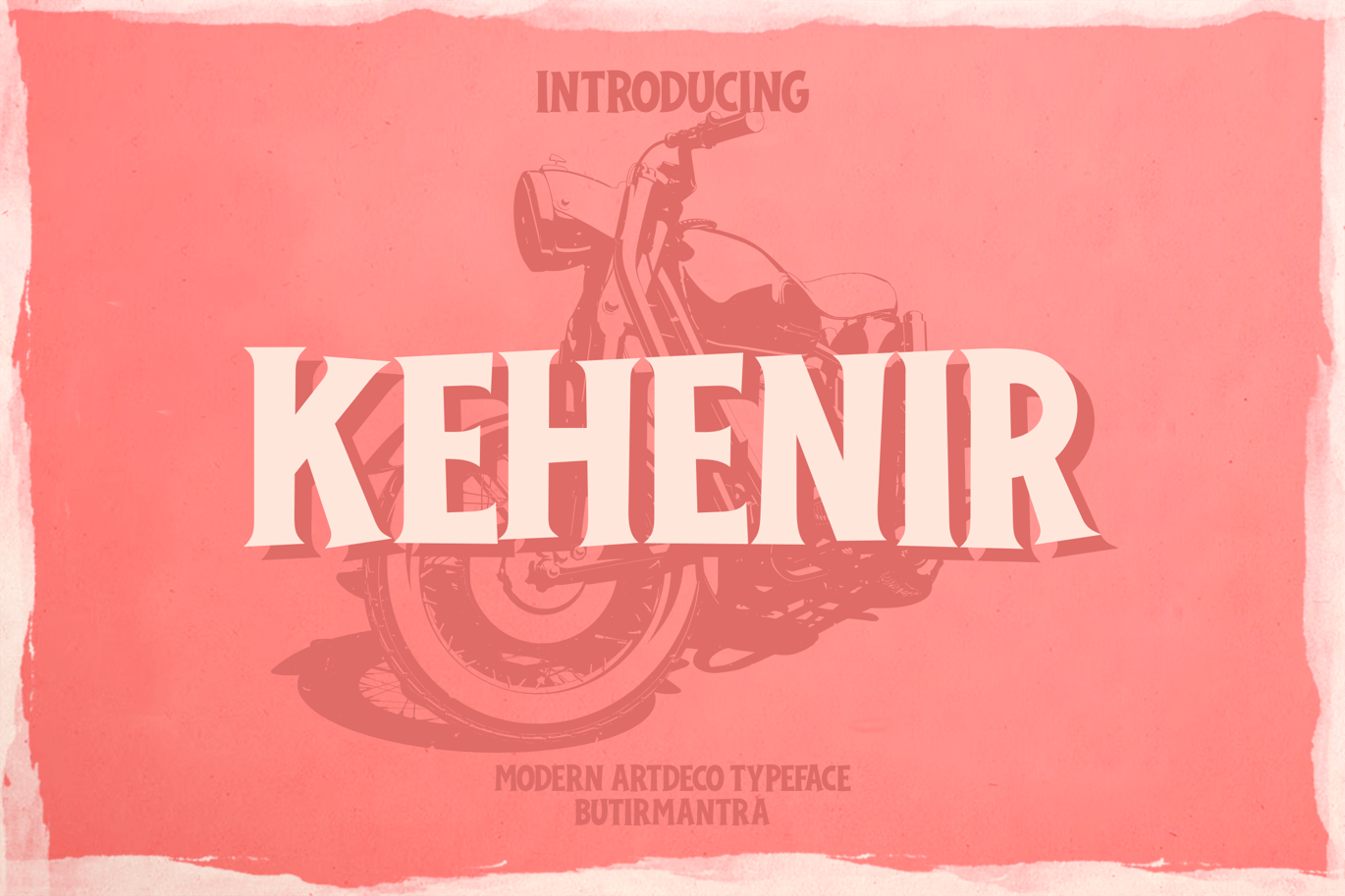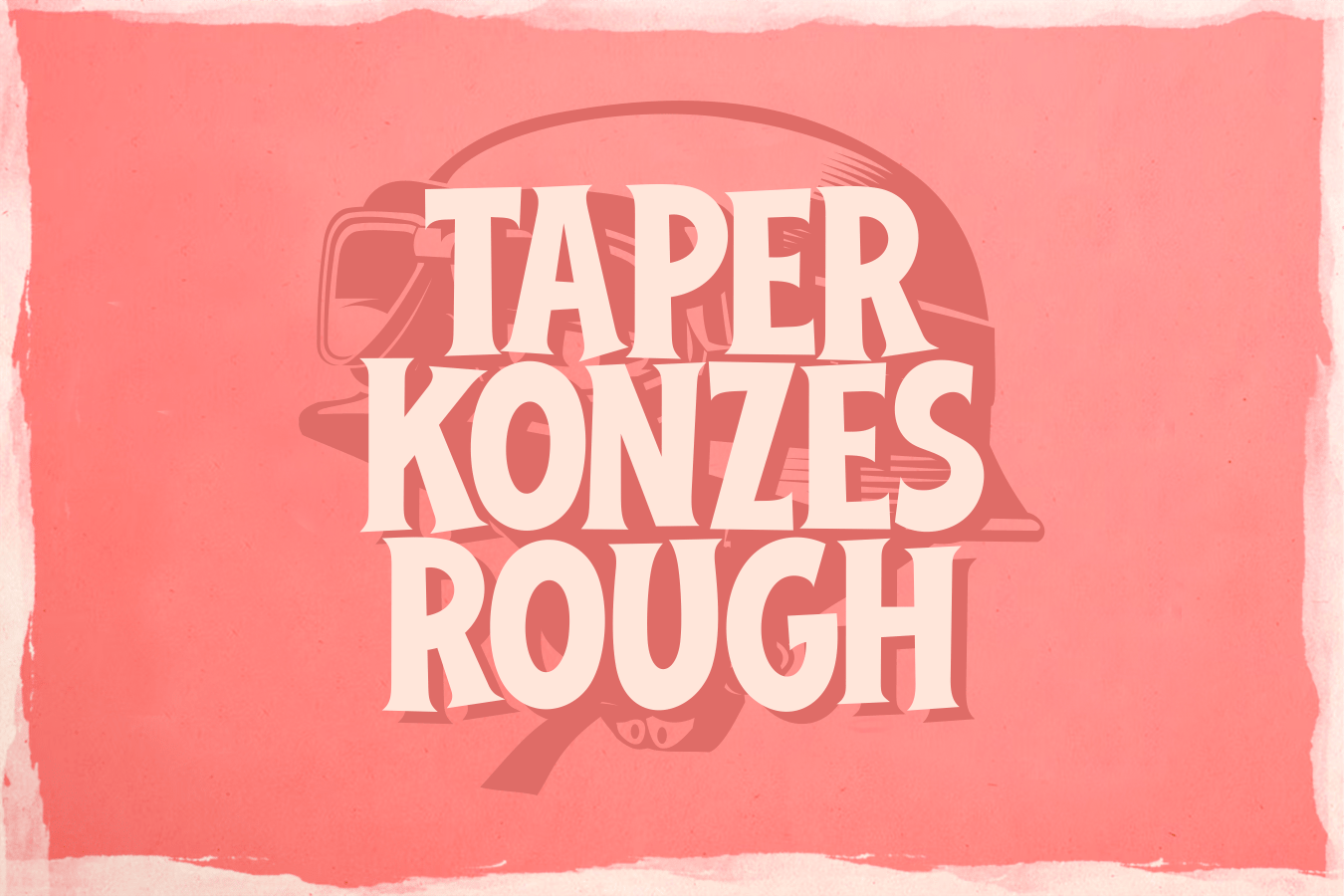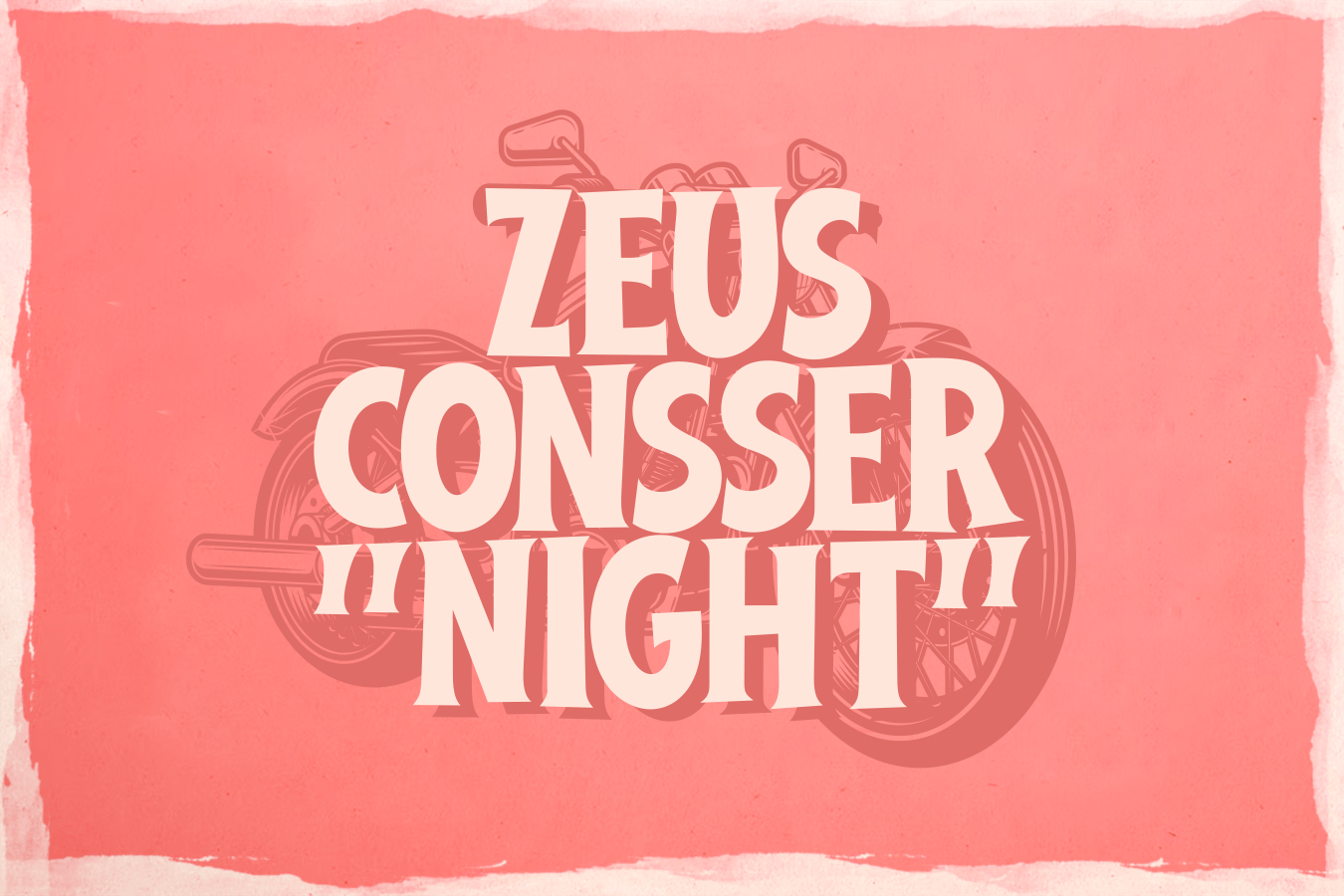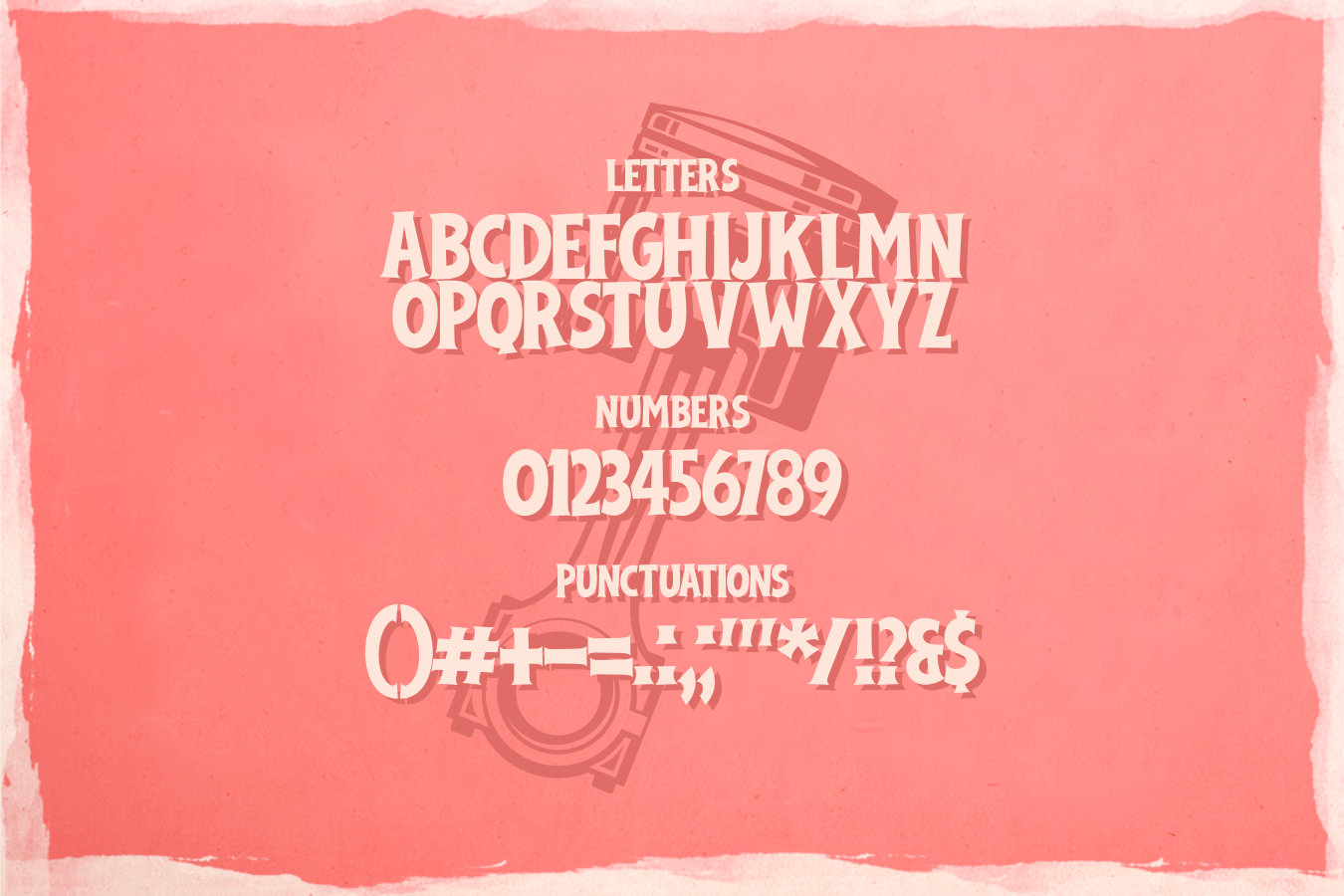
Kehenir – Modern Artdeco Font
Kehenir is a unique font and also has a vintage look font, it comes with strong all-caps making it look different. This font is inspired by the old style then brings it back with a modern and fresh touch, it is dynamic and elegant. Use it for awesome designs, branding, titles, comics, posters, brochures, food, album covers, logos and more.